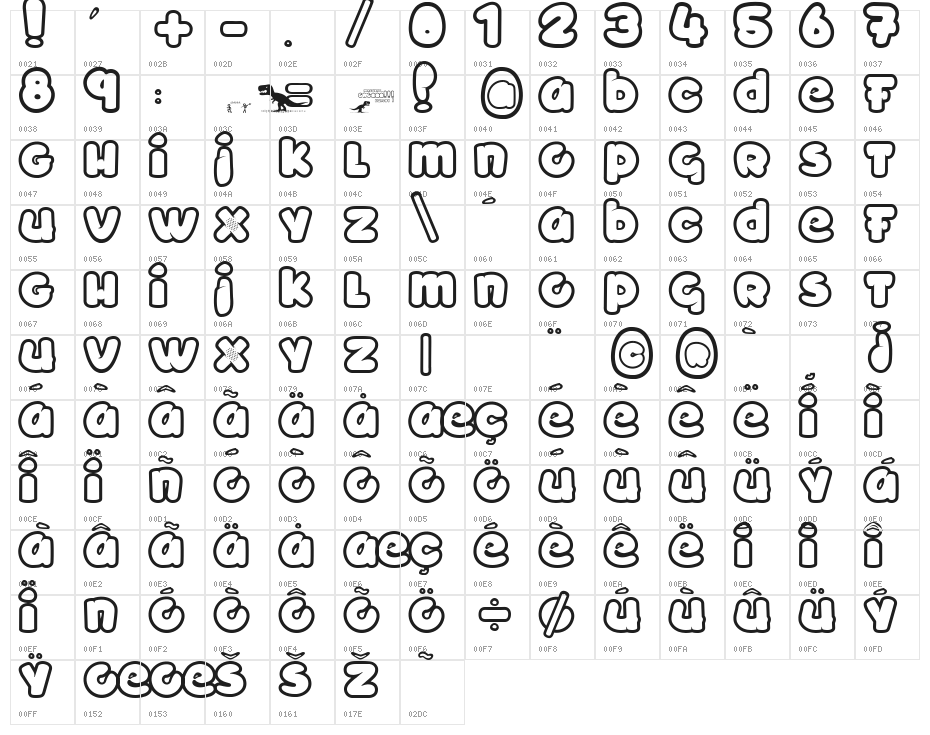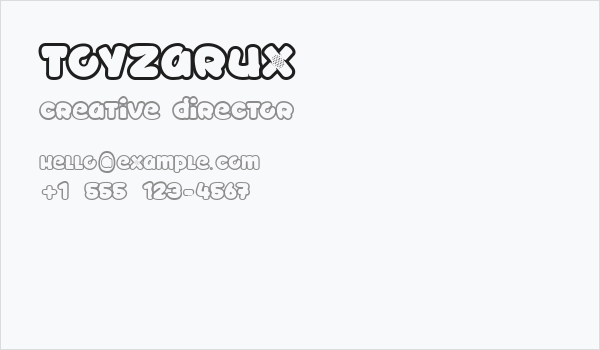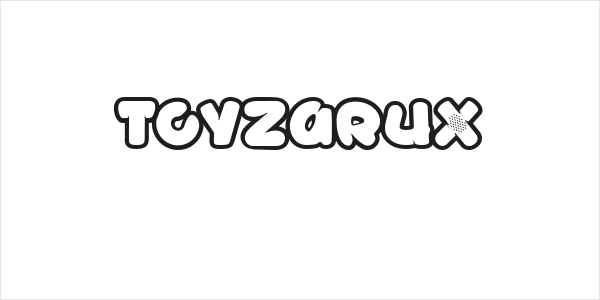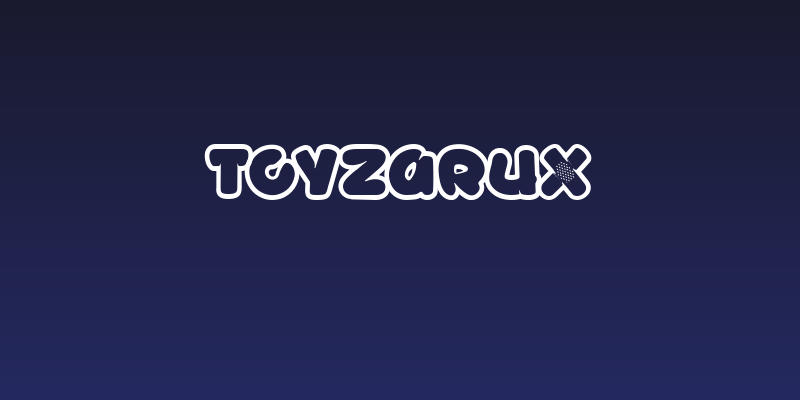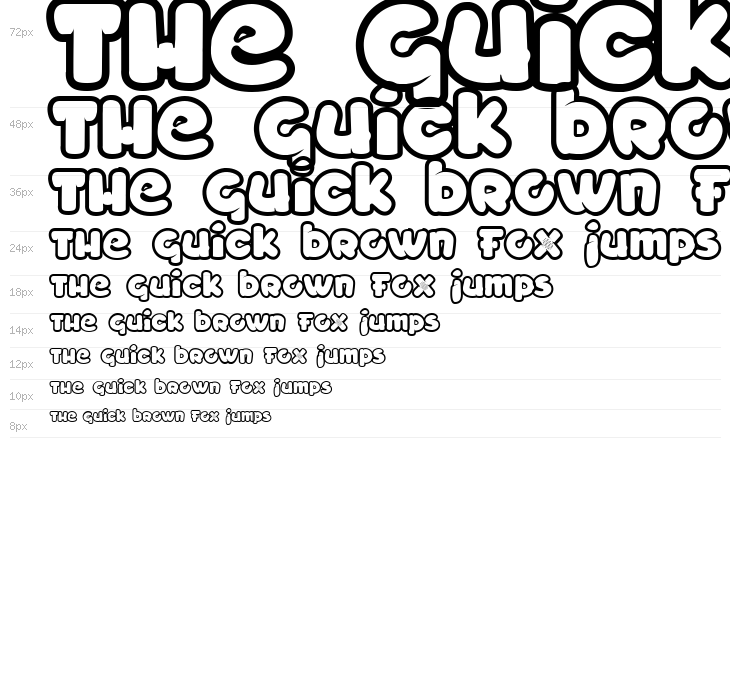
TOYZARUX Font
TOYZARUX Description
This playful and bold font features rounded, bubble-like characters that convey a sense of fun and whimsy. The letters are thick and evenly spaced, with a consistent stroke width that gives them a uniform appearance. The uppercase and lowercase letters maintain a similar style, enhancing readability while maintaining a playful aesthetic. Numbers and special characters are designed to match the overall style, making this font versatile for various uses. The font's boldness and rounded edges make it particularly suitable for children's products, playful branding, or any project that requires a lighthearted and approachable feel.
| Proposed Projects | Ideal for children's books, toy packaging, playful branding, party invitations, and educational materials. |